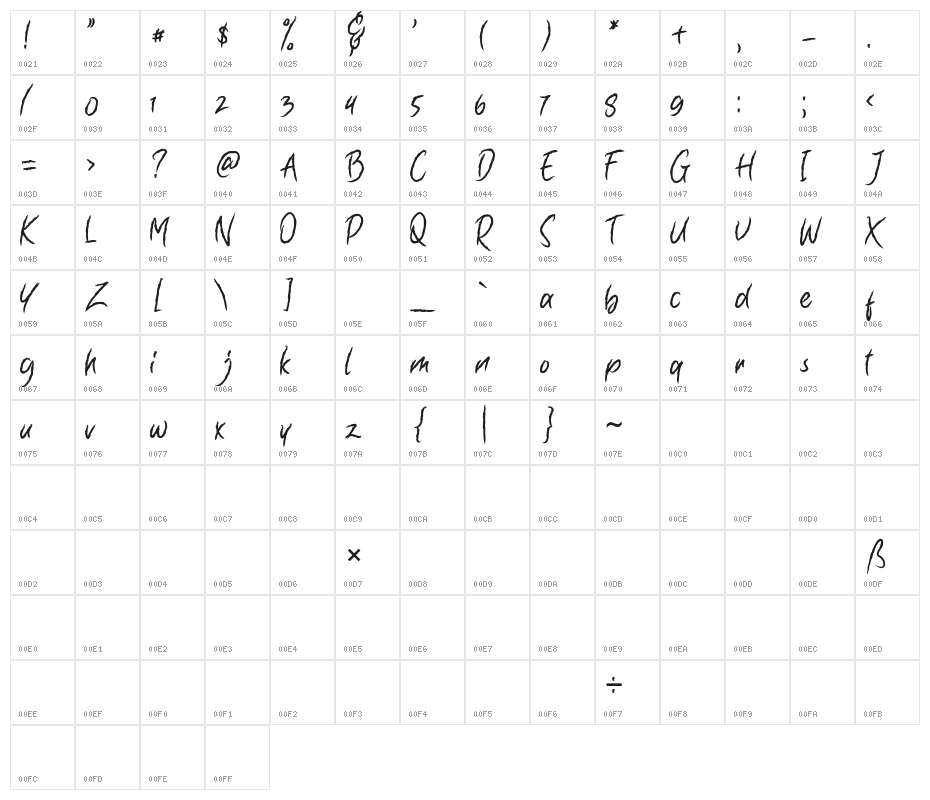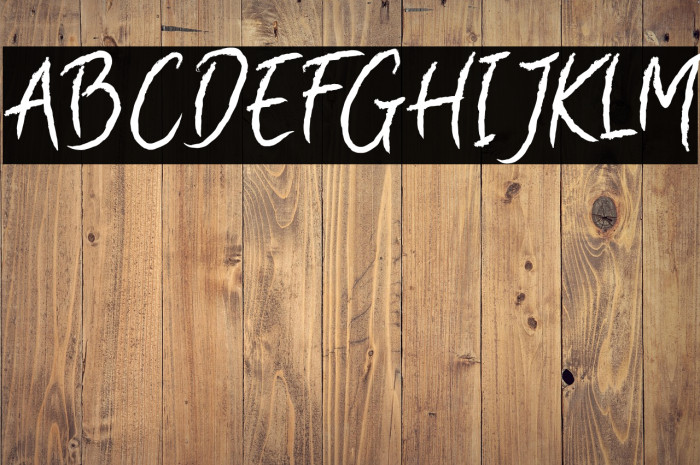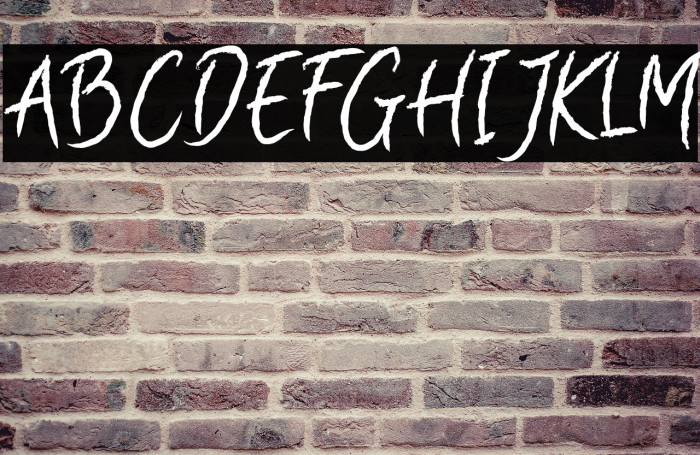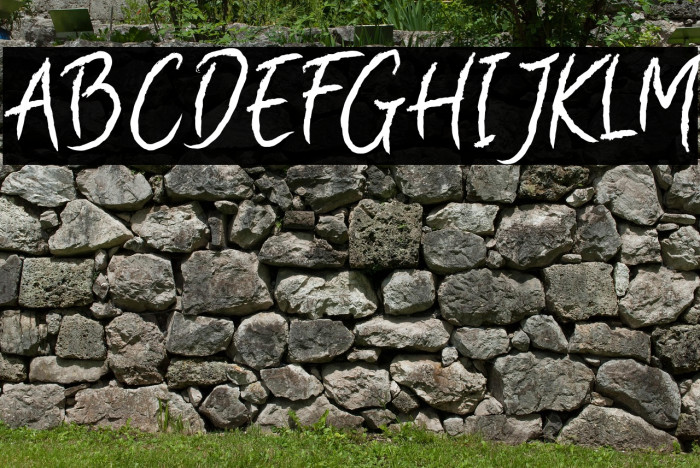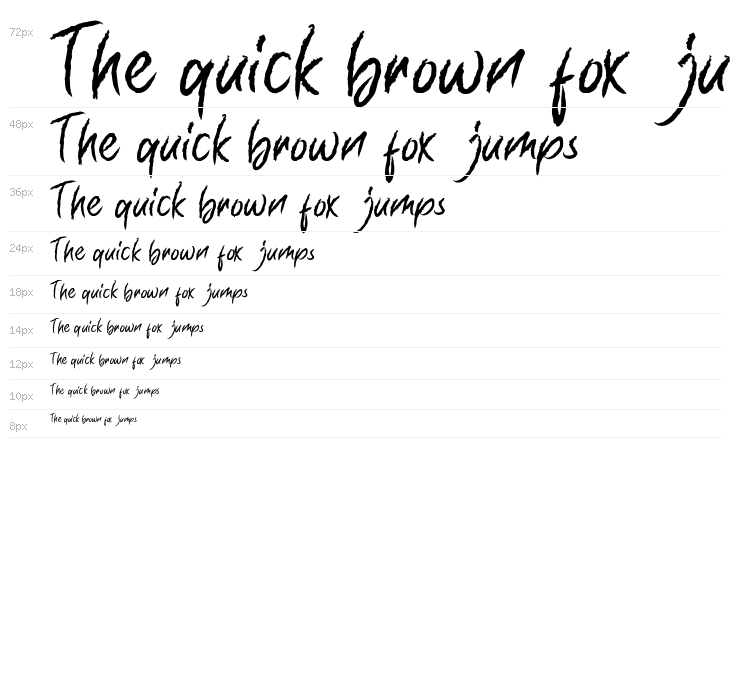
Natural Solid Font
| 使用场景 | Logos, Headlines, Artistic designs |
| 推荐项目 | Ideal for branding, packaging, posters, and invitations where a personal and artistic touch is desired. |